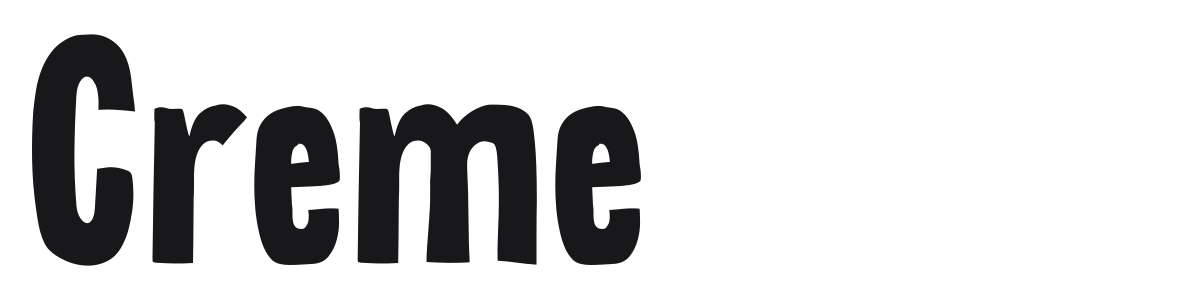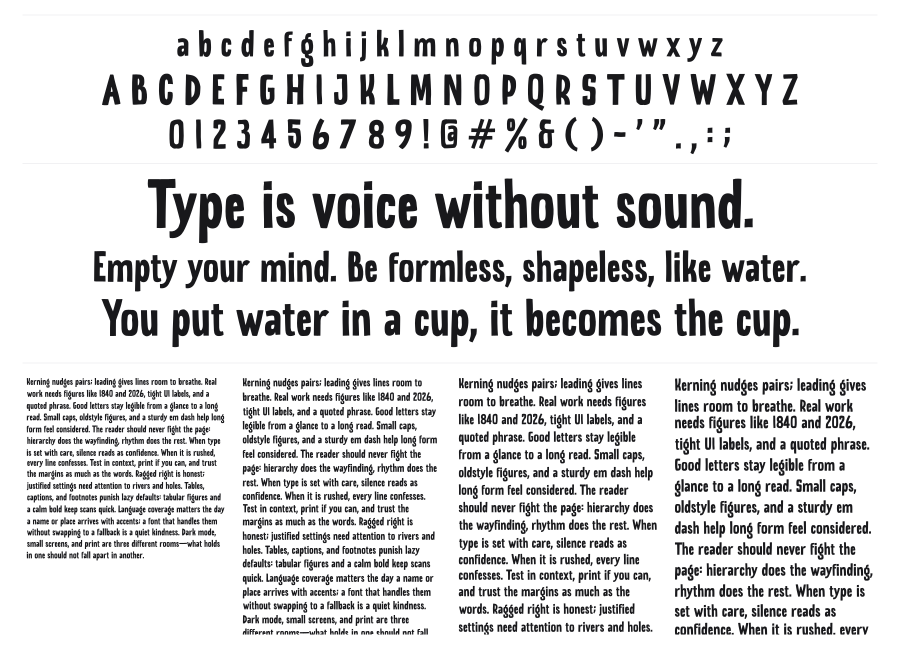
Creme
Creme is a heavy condensed humanist sans with bold, tightly packed proportions and a punchy visual weight. The subtle organic warmth in its curves prevents it from feeling mechanical, giving it personality without sacrificing clarity at large sizes. It reads with authority on posters, editorial headlines, and brand identities that need presence in a narrow space.